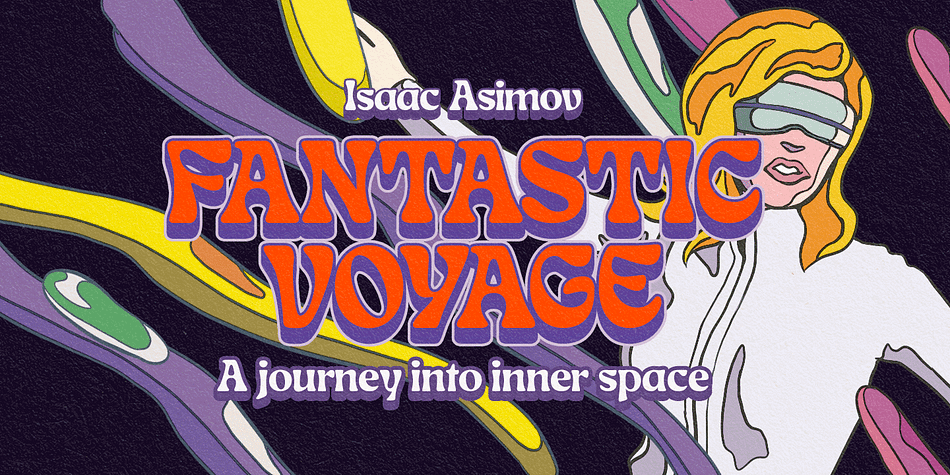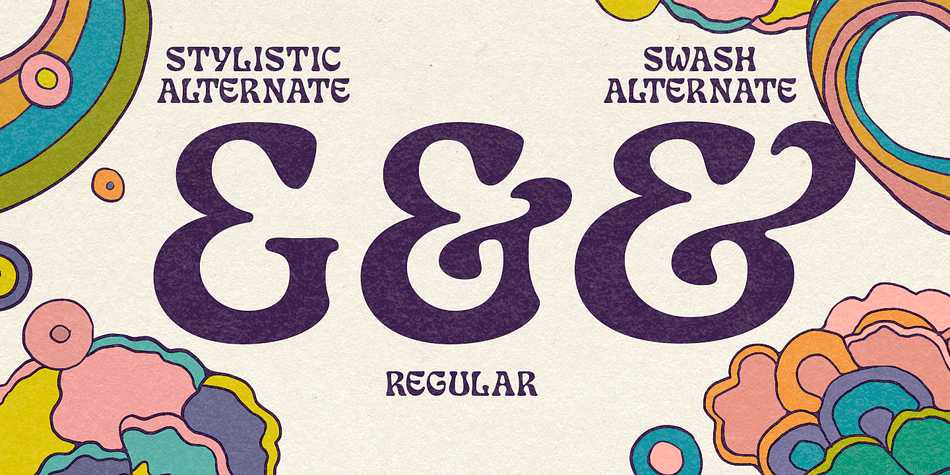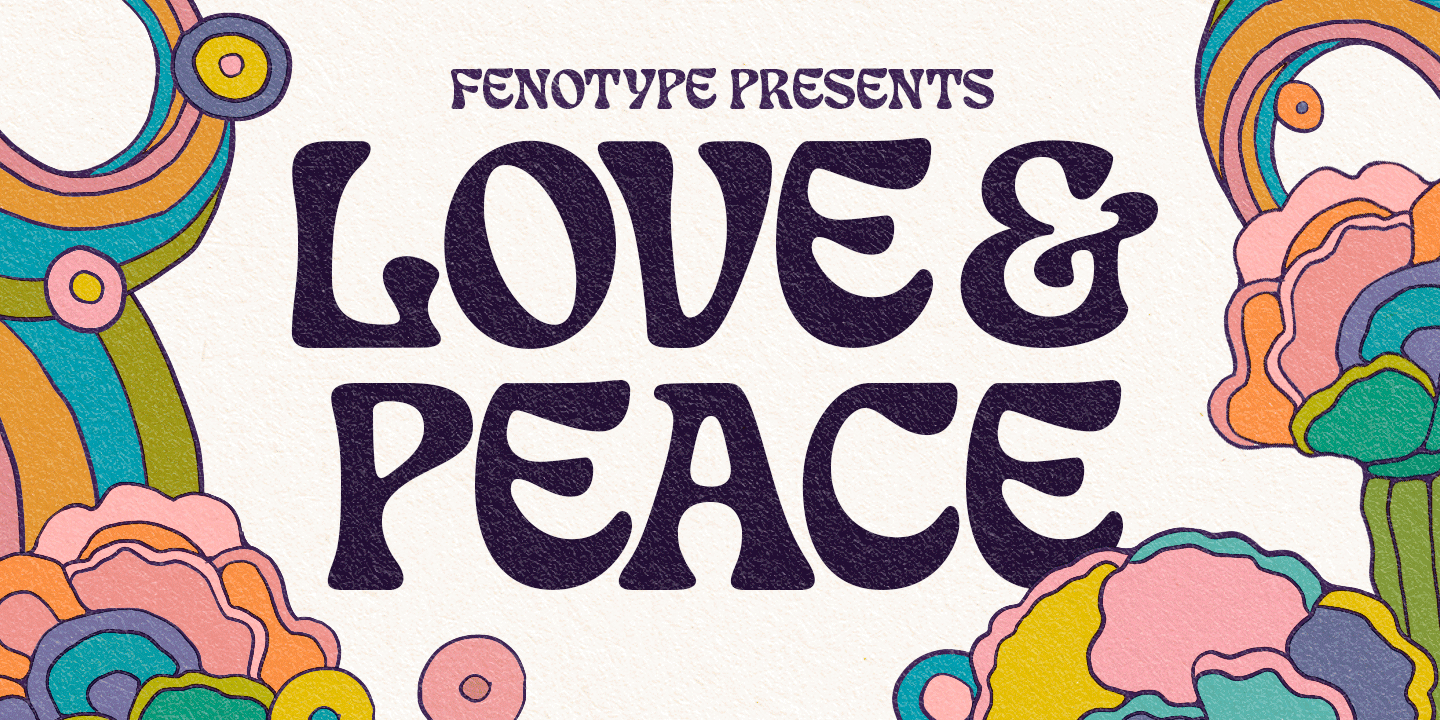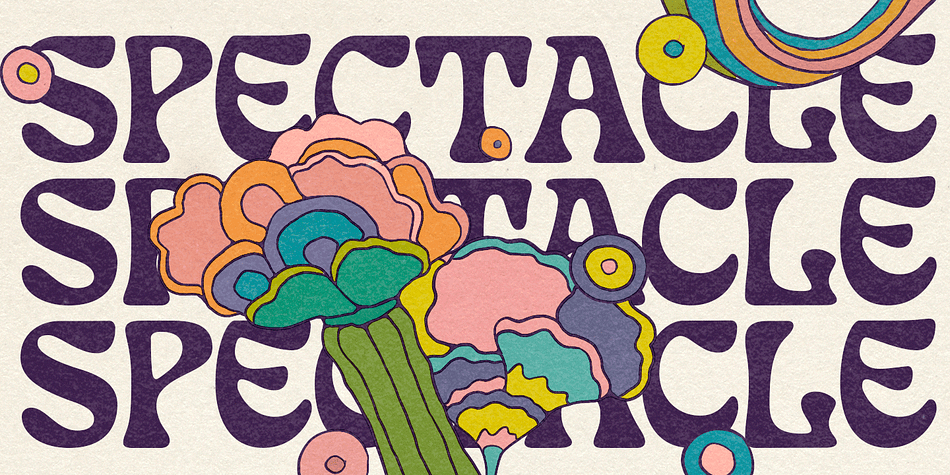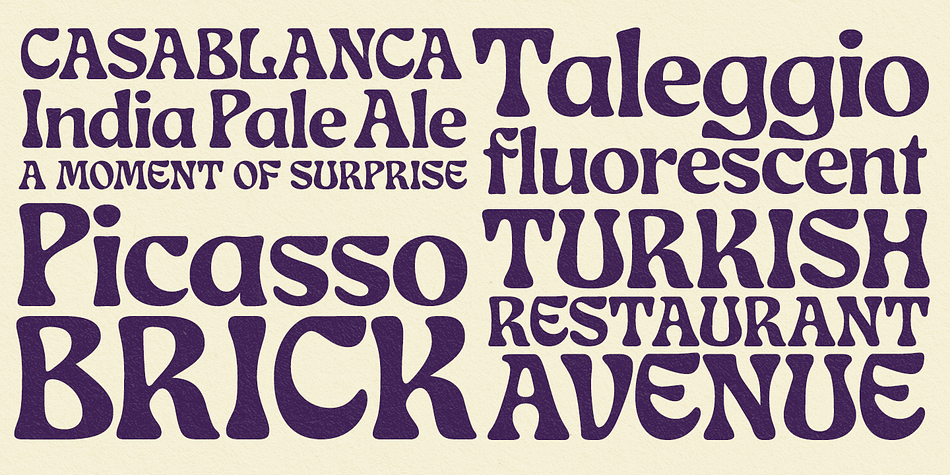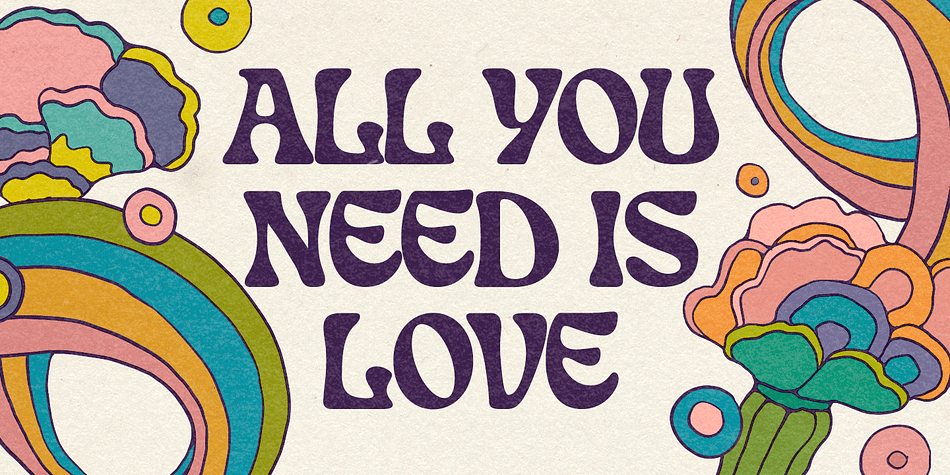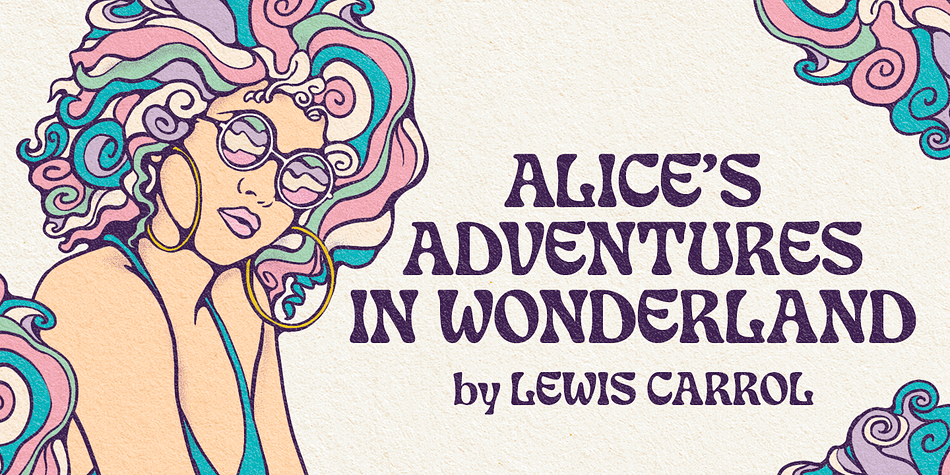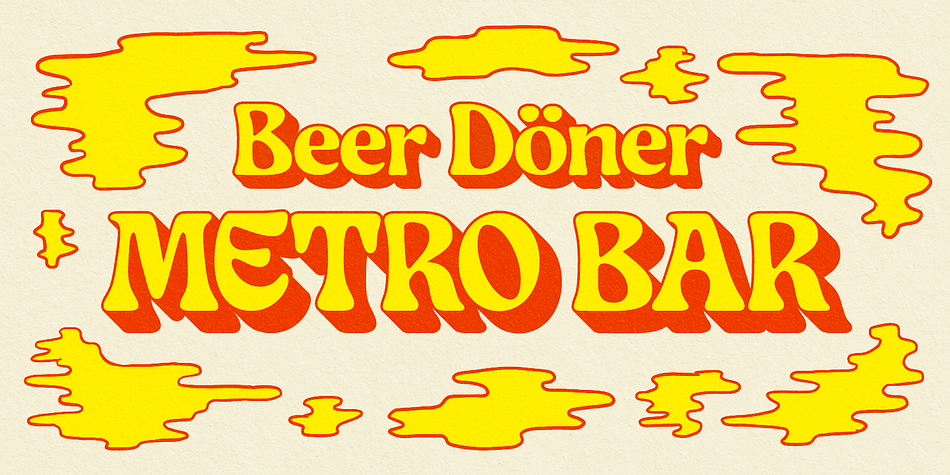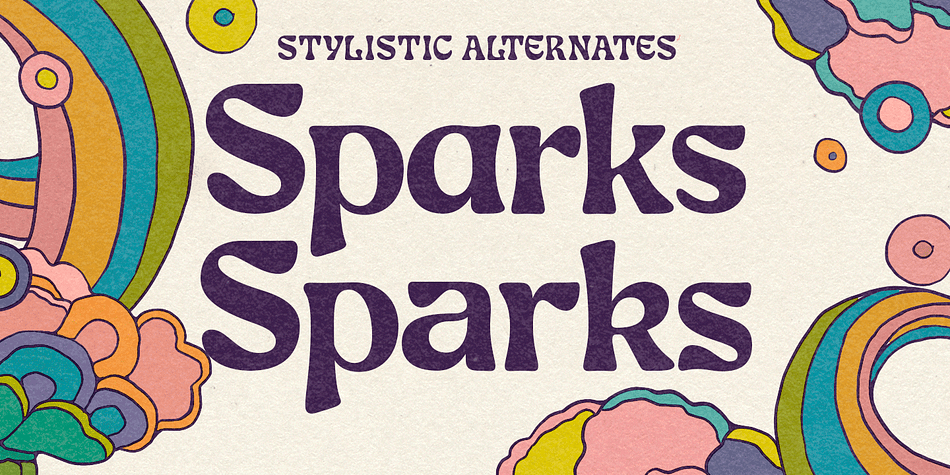
Love And Peace
Designed by Emil Bertell, Love And Peace is a retro font family published by Fenotype.
What’s so funny ‘bout peace love & understanding? Nothing really. Love and Peace is an Art Nouveau style typeface inspired by Eckmann-Schrift by Otto Eckmann in 1900.
Love and Peace is filled with ethereal elegance and it’s great for posters, magazines and psychedelic LP covers. Love and Peace is equipped with few Contextual Alternates and Standard Ligatures to prevent characters from colliding. In addition it has Stylistic Alternates for lowercase a, k, r and s, and Swash Alternates for ampersand and dollar sign.